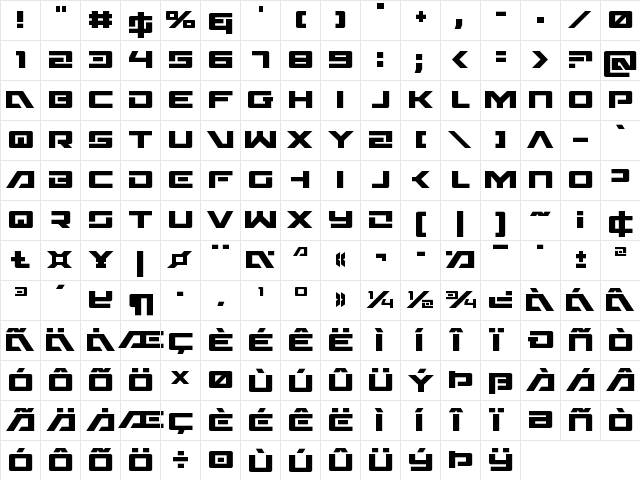
Wildcard Regular
Design Context for Wildcard Typeface
Wildcard is a composed and adaptable typeface that performs quietly and consistently across a wide range of design contexts.